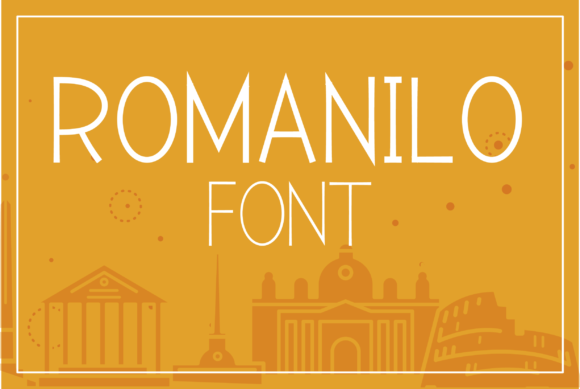
Romanilo Font
Behold, Romanilo, the captivating sans serif font that radiates modern elegance and lightness! Crafted by the visionary Danilo Miguel, Romanilo is a masterpiece that will grace your designs with a touch of chic sophistication.
Step into a world where your words dance with an unparalleled confidence and charm. Romanilo's clean lines and graceful curves create a symphony of visual harmony, ensuring your message shines with clarity and poise. Whether you seek to craft captivating headlines, elegant body text, or any creative expression in between, Romanilo will effortlessly elevate your designs to new heights.
Indulge in the versatility of Romanilo, a font that seamlessly adapts to a myriad of design aesthetics. From sleek and contemporary to timeless and classic, Romanilo's adaptability knows no bounds. Its inherent charm transforms ordinary text into captivating narratives, effortlessly capturing the attention of your audience.
Experience the allure of Romanilo, a font that ignites imagination and inspires limitless creativity. Its modern elegance lends a touch of sophistication to any project, while its lightness allows your creations to soar with grace. Whether you're a seasoned designer or just starting your creative journey, Romanilo is the perfect companion to bring your visions to life with confidence and panache.
Don't let your words be confined to the ordinary. Embrace the transformative power of Romanilo, the sans serif font that will elevate your designs to the realm of the extraordinary. Download Romanilo today and unleash the limitless possibilities that await your creative fingertips.